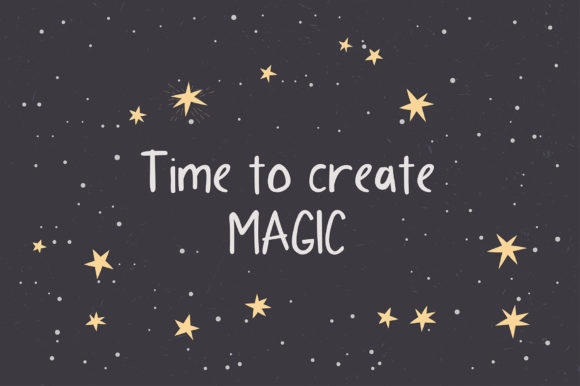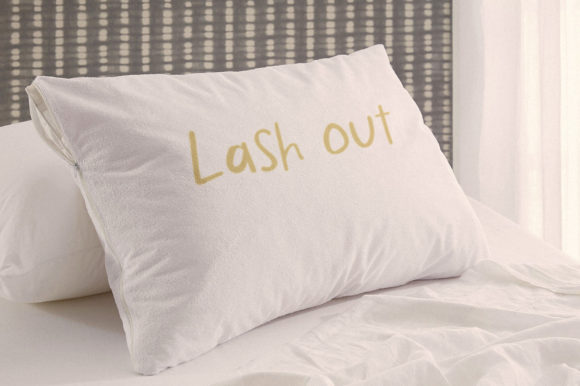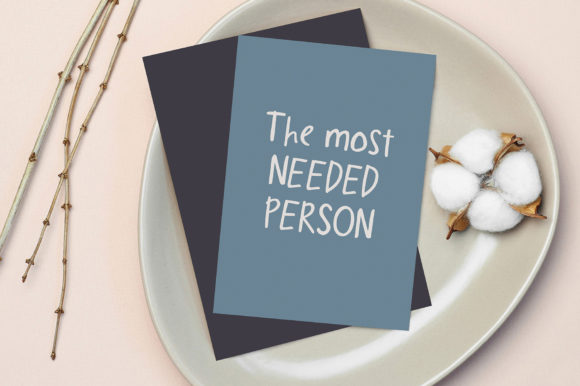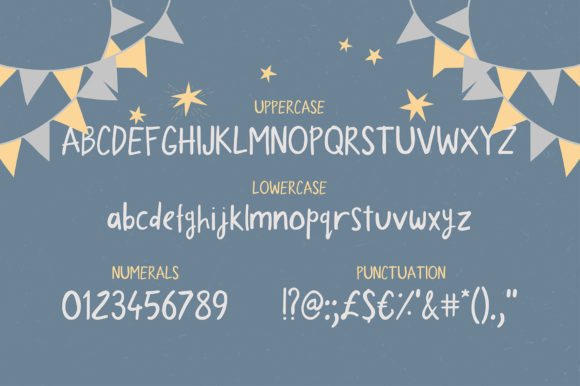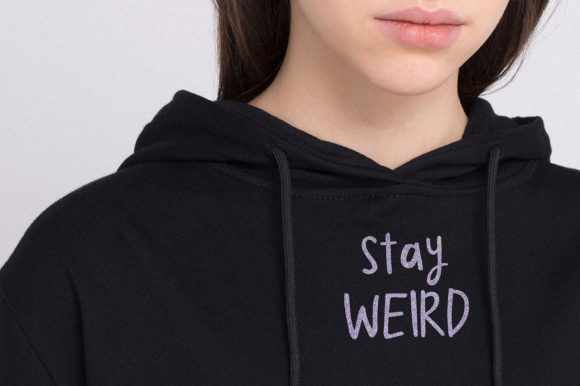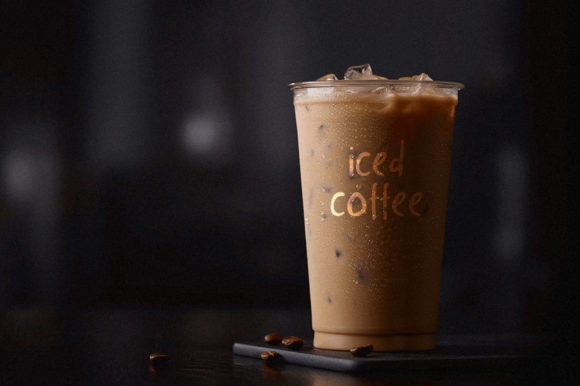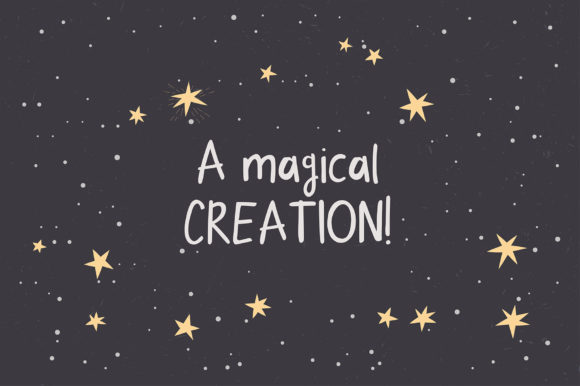
About Kit Cloudkicker Font
Kit Cloudkicker is a cute and casual handwritten font. Whether you use it for cartoon related designs, children games or just any creation that requires a lovely touch, this font will be an amazing choice.